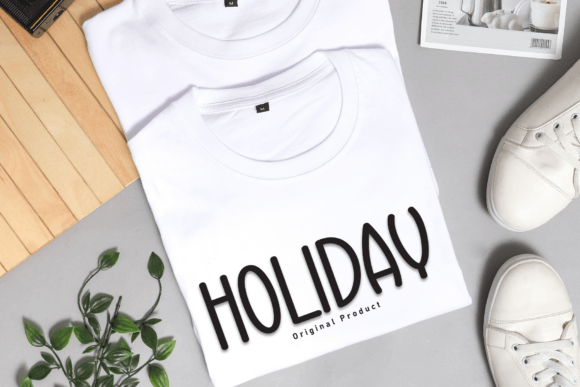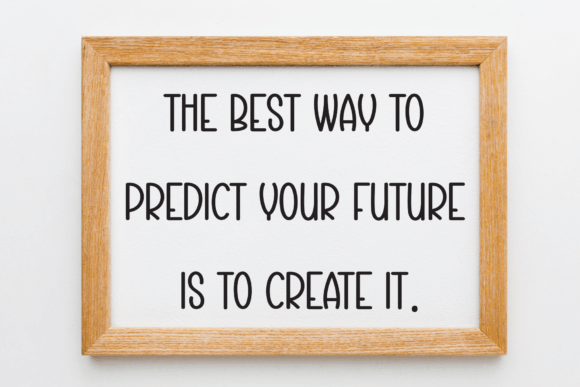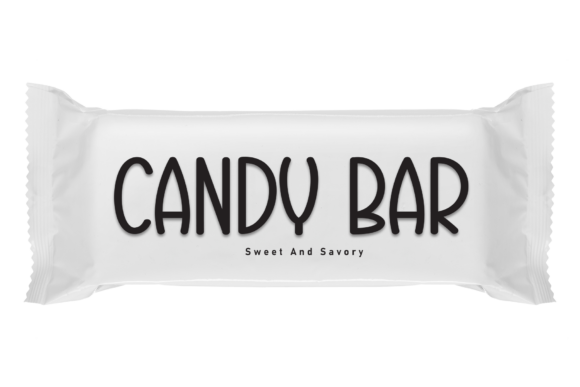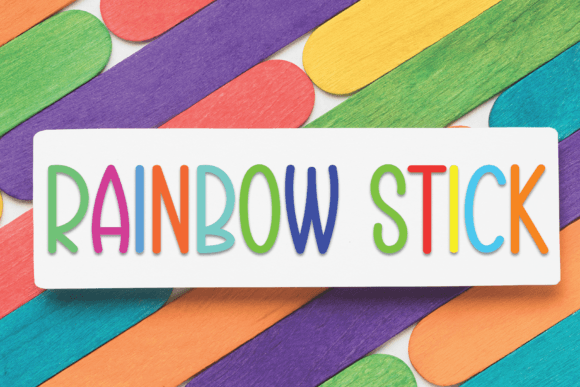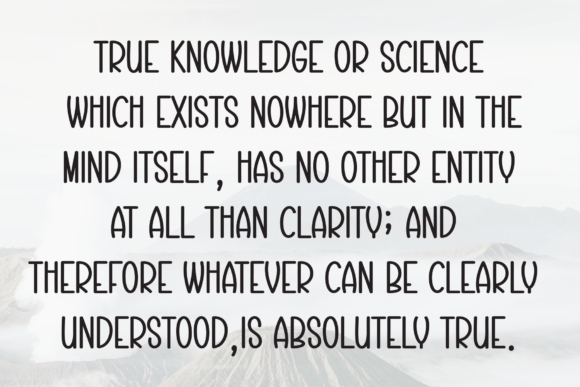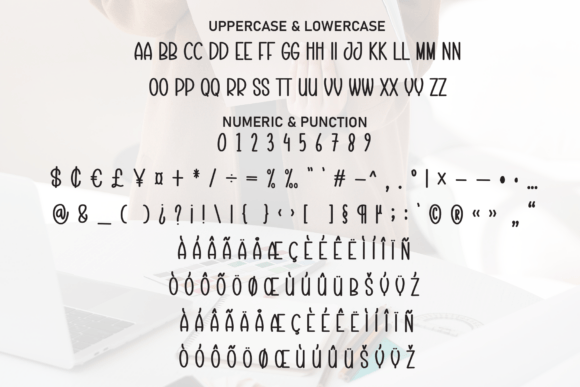
When Creativity Strikes
You know that moment when you’re brainstorming a new project, and a spark of inspiration hits you like a ton of bricks? It’s like the whole world has come alive, and your imagination is racing with possibilities. That’s exactly what happened when the team behind Designer Font set out to create a display font that would truly stand out from the crowd.
Designer Font is a stylish, eye-catching font designed to grab attention and make a bold statement. Its unique, creative shapes make it perfect for headlines, posters, and anything that needs to stand out from the noise. Whether you’re a seasoned designer or just starting out, Designer Font is an invaluable tool in your creative arsenal.
Designer Font Key Features
- Font Family: Designer Font comes in a unique, handcrafted font family with multiple weights and styles, including bold, italic, and regular.
- Size: Designer Font is designed to be highly legible at various sizes, with optimal results between 12pt and 48pt.
- Resolution: Optimized for high-resolution displays, including 4K and Retina screens, with clear and crisp typography at 300 DPI and above.
- Unique Characteristics: Features a distinctive, modern aesthetic with subtle flair and flair, making it perfect for creative and professional projects alike.
- Character Set: Includes a comprehensive set of characters, including Latin, Cyrillic, and Greek alphabets, as well as a range of punctuation and symbols.
Designer Font Review
Overall, I was quite excited to dive into the world of “Designer Font”. The font has a unique and modern aesthetic that immediately caught my attention ✨. The clean lines and elegant curves make it perfect for various design projects, from logos to brochures. I particularly appreciate how the font scales well across different resolutions, ensuring a smooth reading experience.
Another standout feature of “Designer Font” is its versatility. It comes in a range of weights, from light to bold, allowing designers to choose the perfect fit for their project. I also appreciate the availability of multiple language support, making it a great option for global brands and businesses.
While “Designer Font” is a solid choice for many designers, it does come with a few limitations ⚠️. One of the main concerns is its limited expressiveness. The font’s simplicity can sometimes make it feel a bit too neutral, lacking the personality and flair that some designers crave.
Additionally, the font’s customization options are somewhat limited, making it difficult for designers to achieve truly unique results.
Conclusion
- Works well for modern and elegant designs
- Excellent scalability across different resolutions
- Highly versatile with various weights and language support
- Limited expressiveness and customization options
For optimal results, use Designer Font in conjunction with a clear and concise design concept.
Experiment with different font sizes, colors, and styles to achieve a visually appealing design.
Consider using Designer Font in combination with other design elements, such as images and graphics, to create a cohesive look.
Designer Font is ideal for:
Corporate branding and identity
Marketing materials (e.g., brochures, flyers)